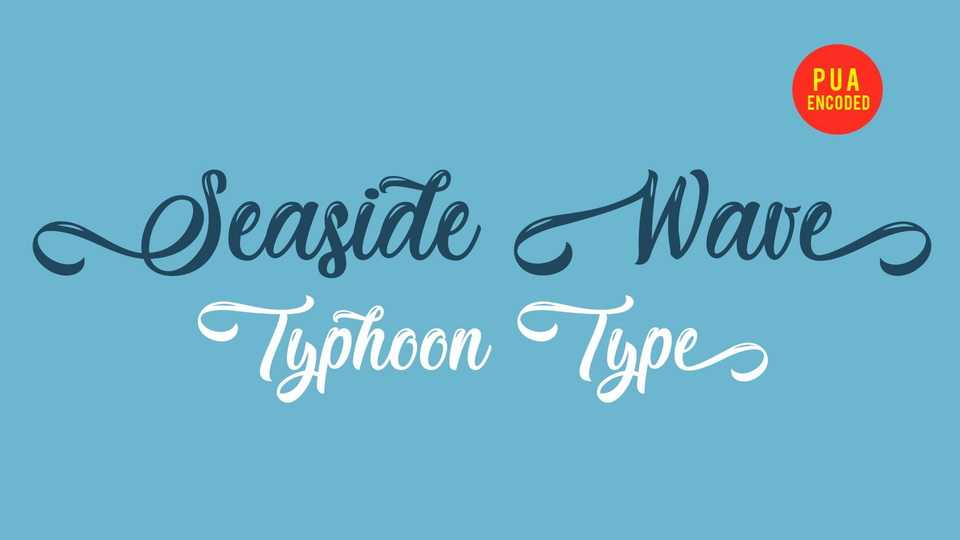
Download Seaside Wave font, a beautiful modern calligraphy script with facncy swashes. It’s perfect for logos, name tag, advertising, product packaging, clothing, social media & greeting cards.
Designer: TyphoonType